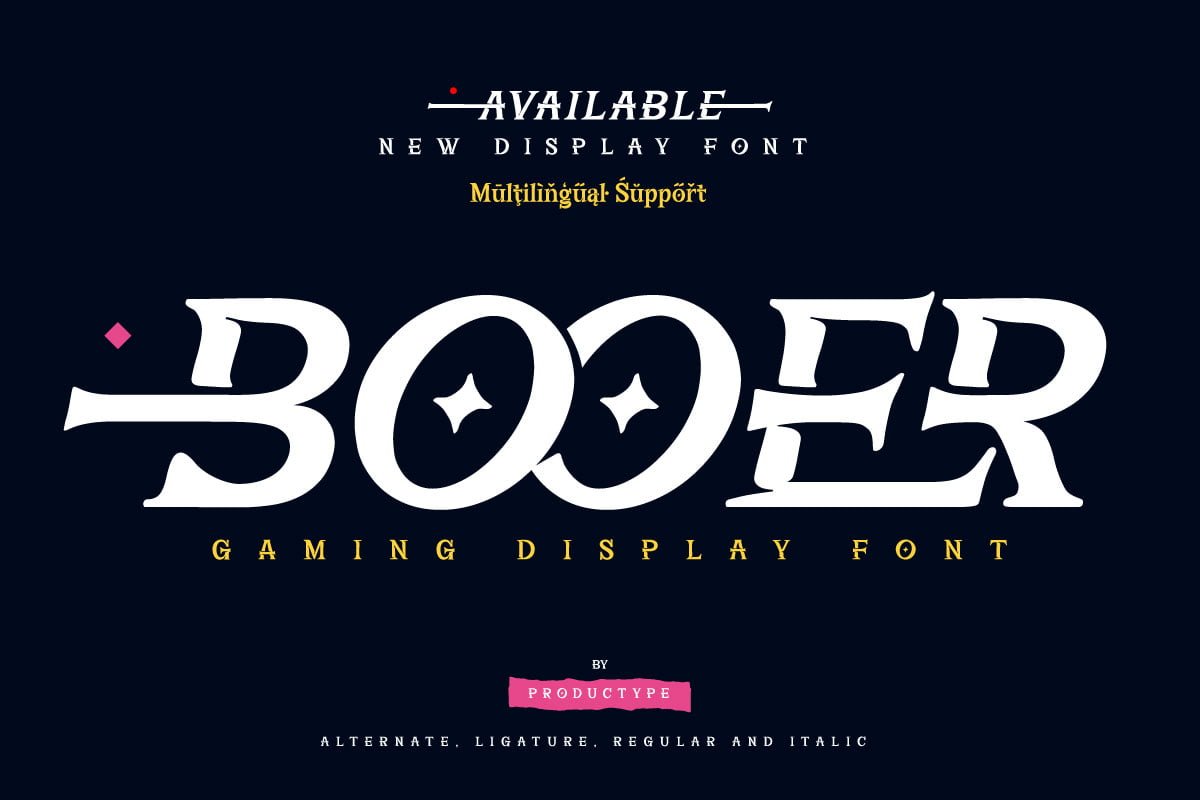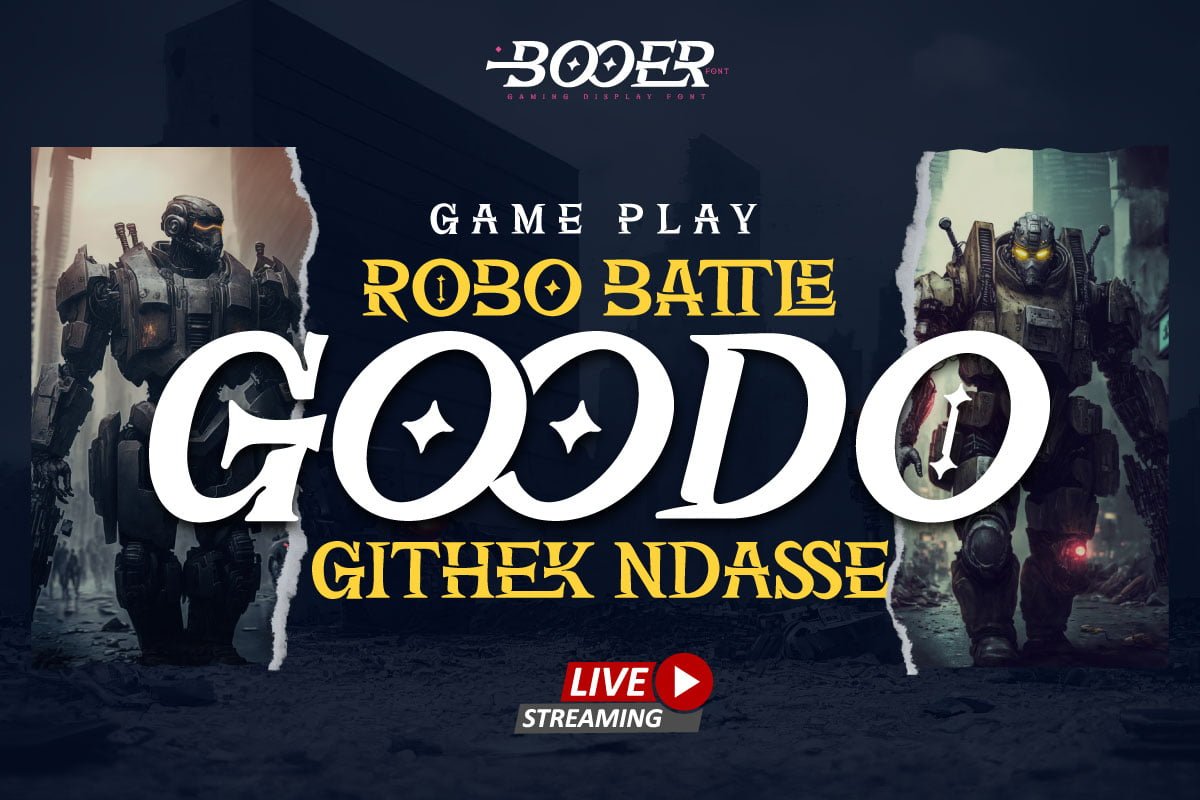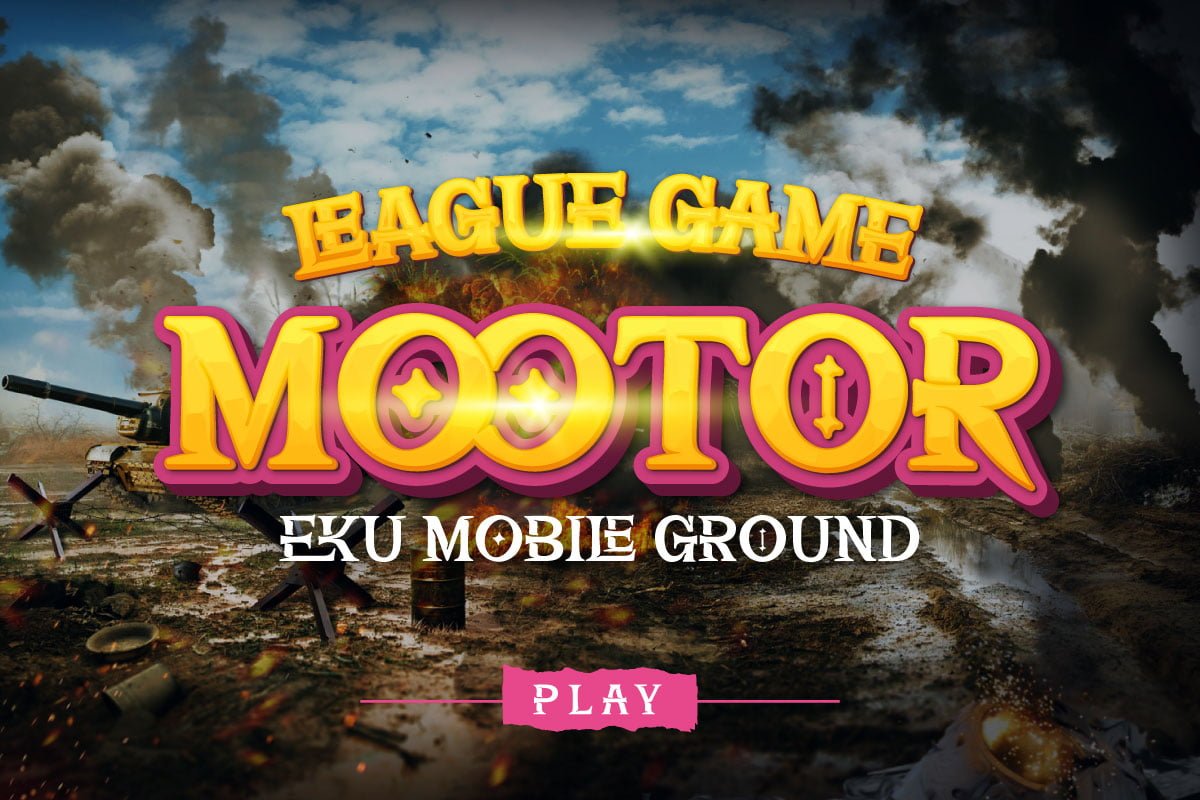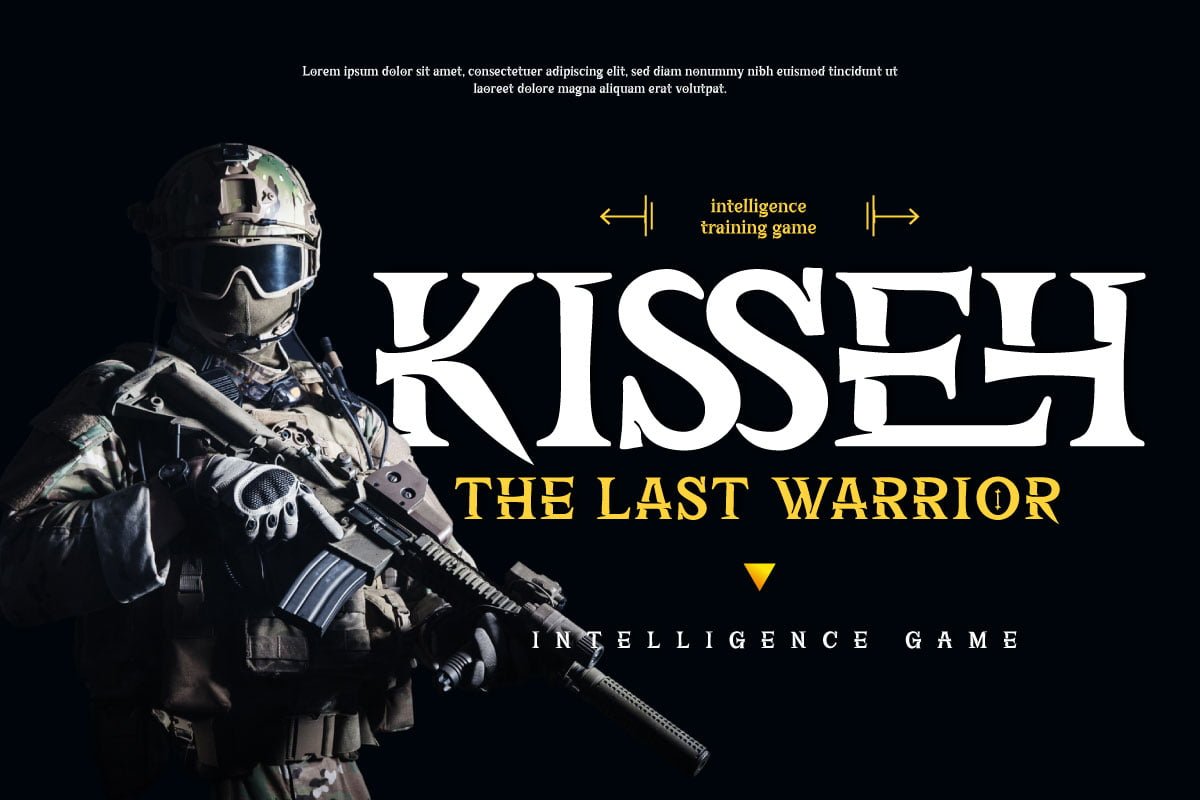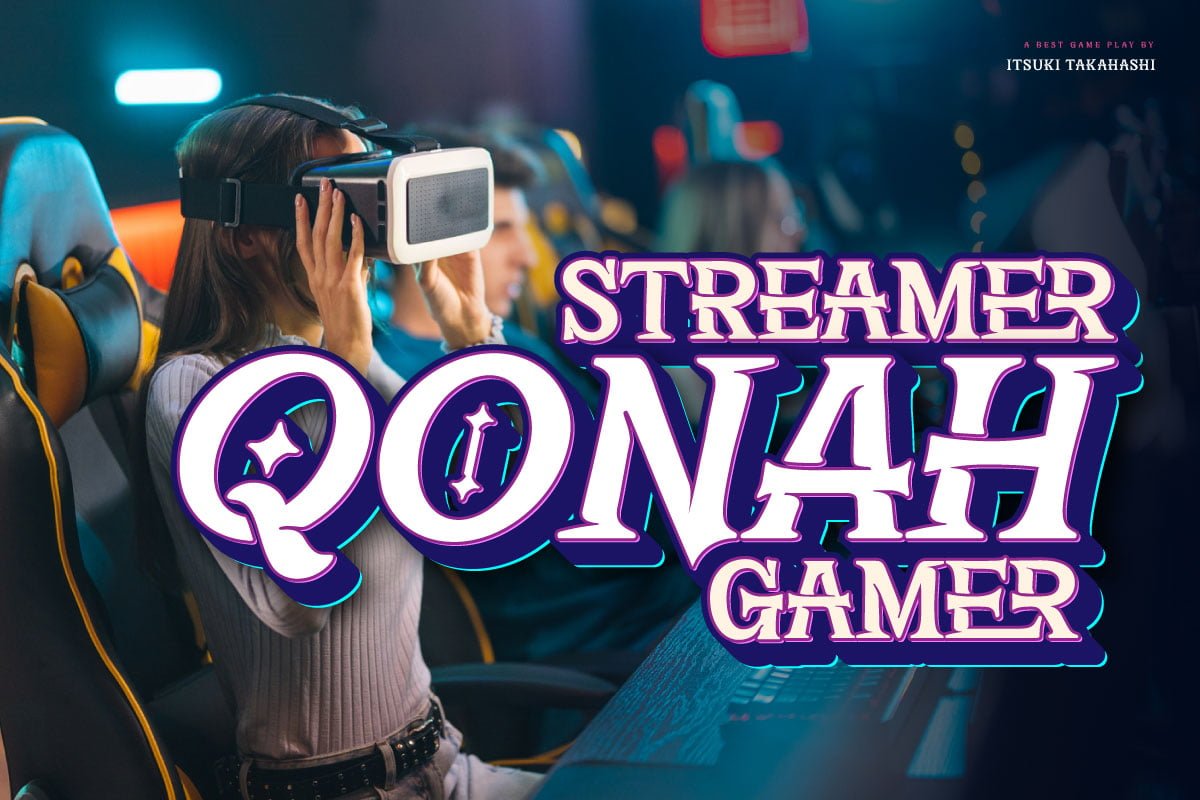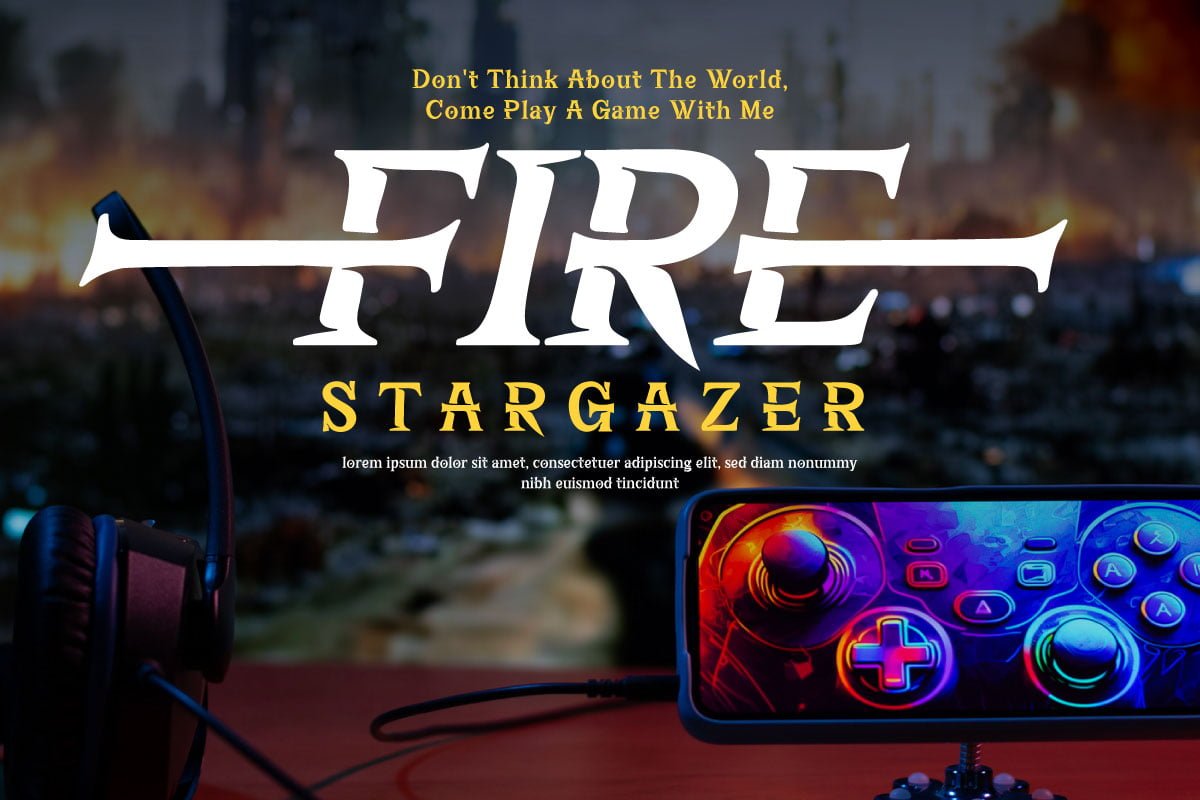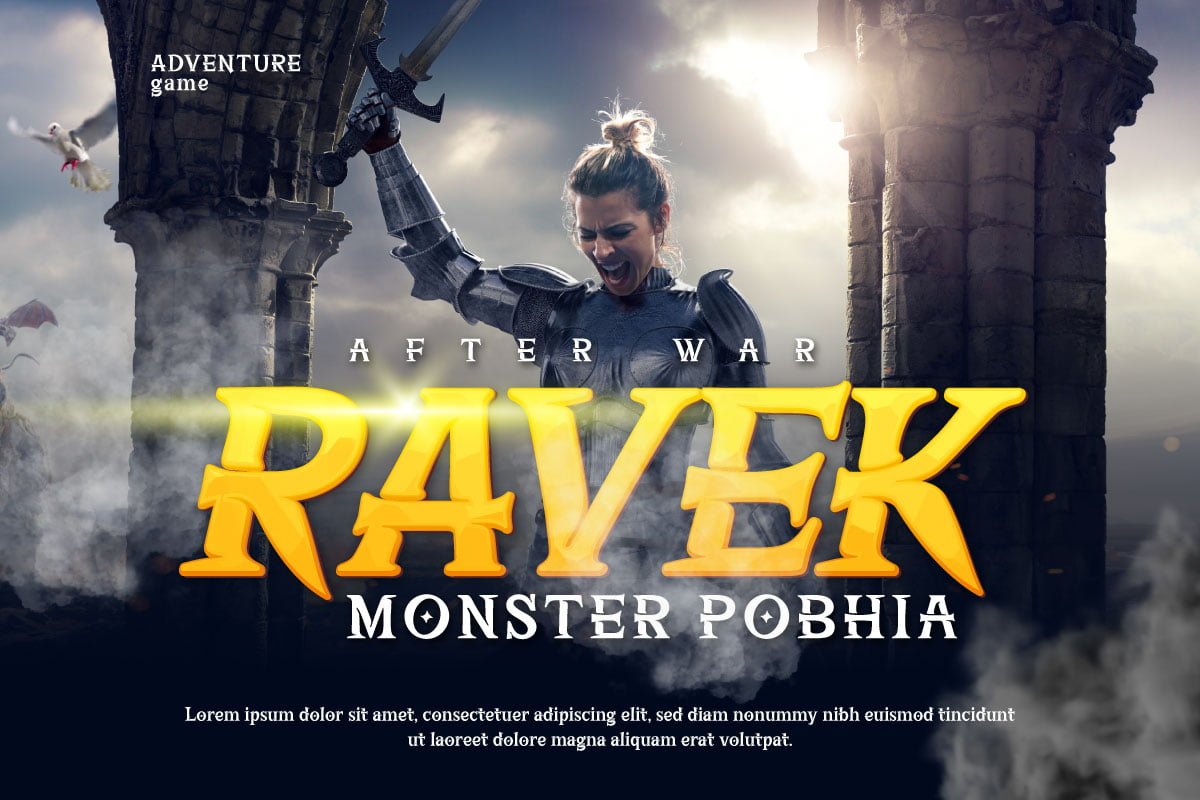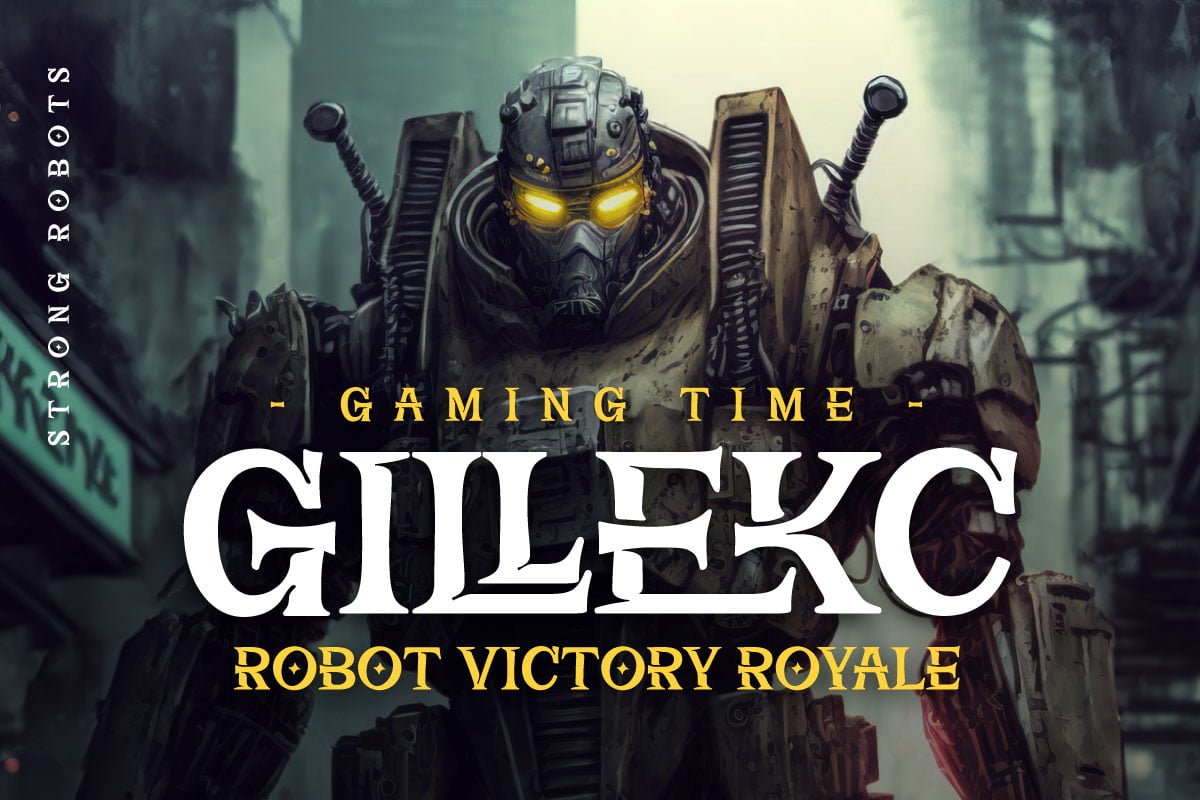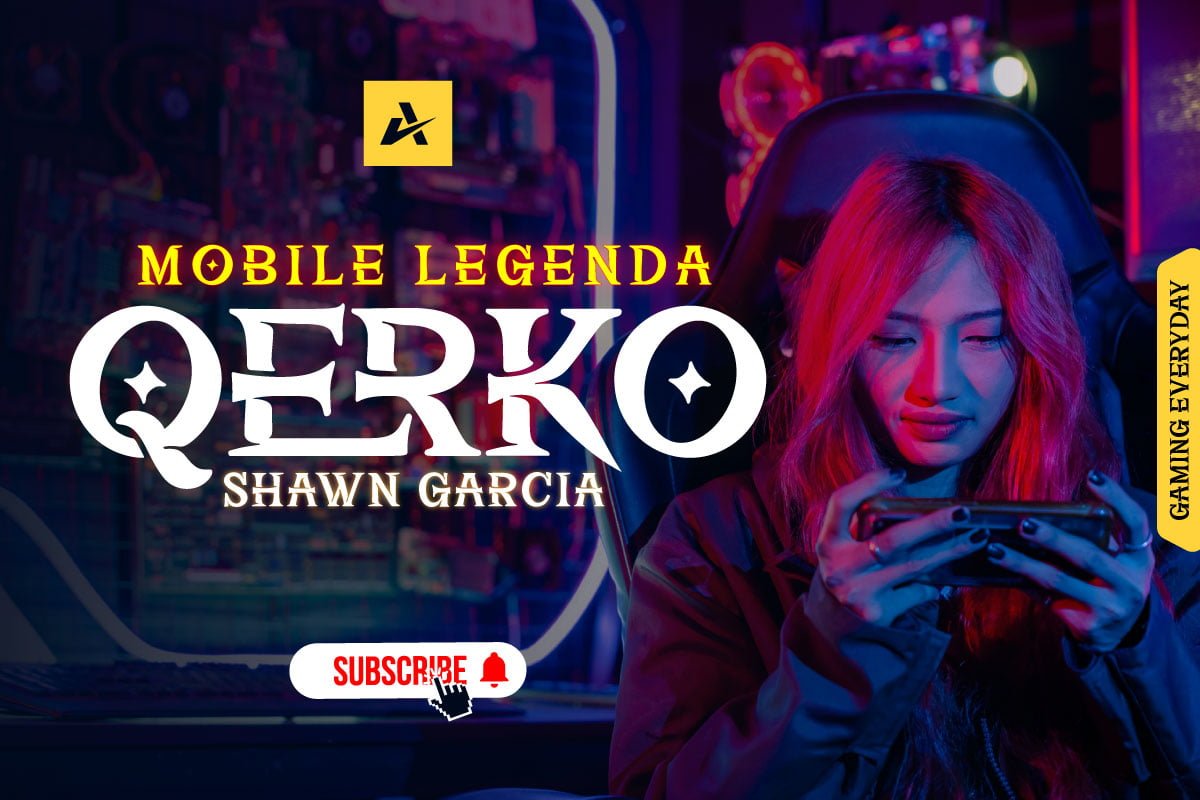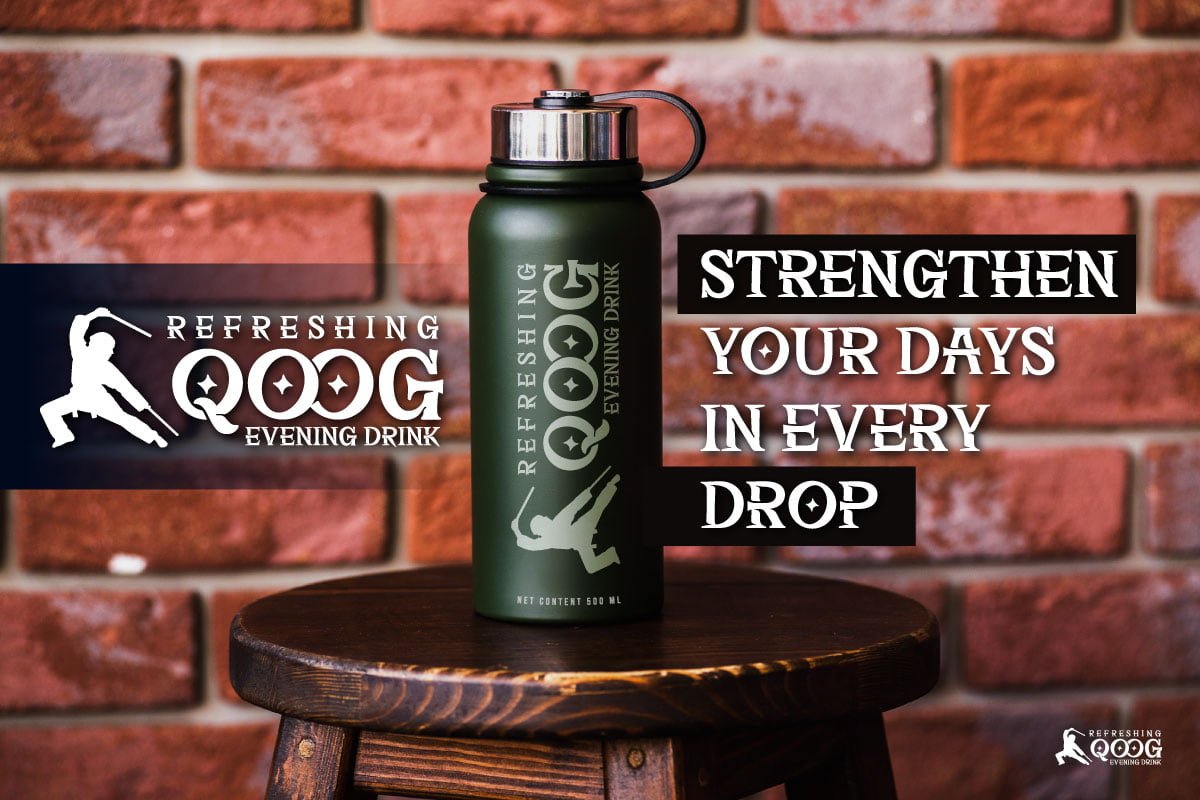
5. BOOER – Display Gaming Font
BOOER – Display Gaming Font
Introduce the Booer Font Express Your Creativity with a Powerful and Modern Gaming Style. Booer display is a font that reflects the power and style of the gaming world in a sharp, modern package.
Booer is the perfect solution for a variety of projects that require a unique theme, whether it’s a film, game, or streaming event. Her bold and exciting style provides room for creativity to flourish.
What Makes Booer Special: Powerful Gaming Style, Booer Design exudes power, capturing the essence of the gaming world. Each letter is a statement of dominance and modernity.
Two Style Families: The Booer font offers two different style families: Regular and Italic. This advantage allows you to adapt your designs to various contexts, whether requiring a strong presence or an elegant touch.
Multilingual Support: Booer Font supports multiple languages, allowing you to connect with a global audience easily.
Enhance your designs and make an impact with Booer Fonts. It’s not just a font; it’s a gateway to a bold, modern, and compelling visual world.